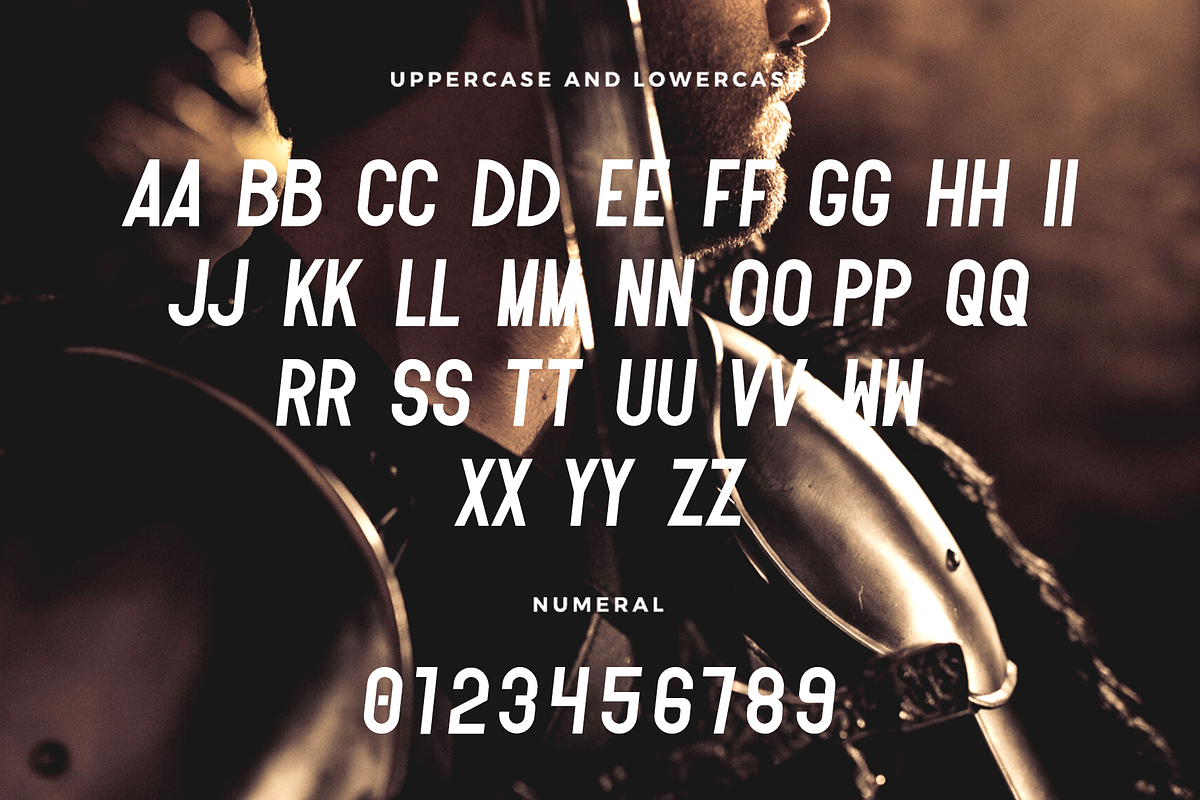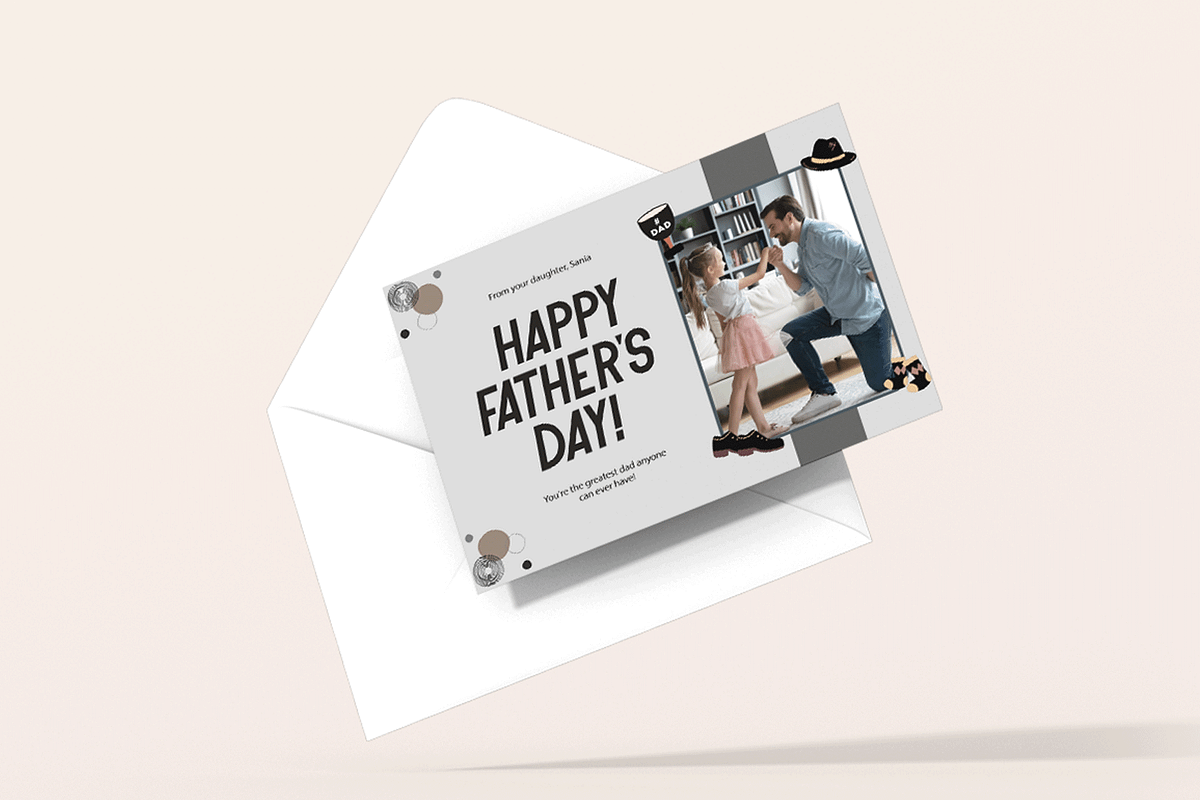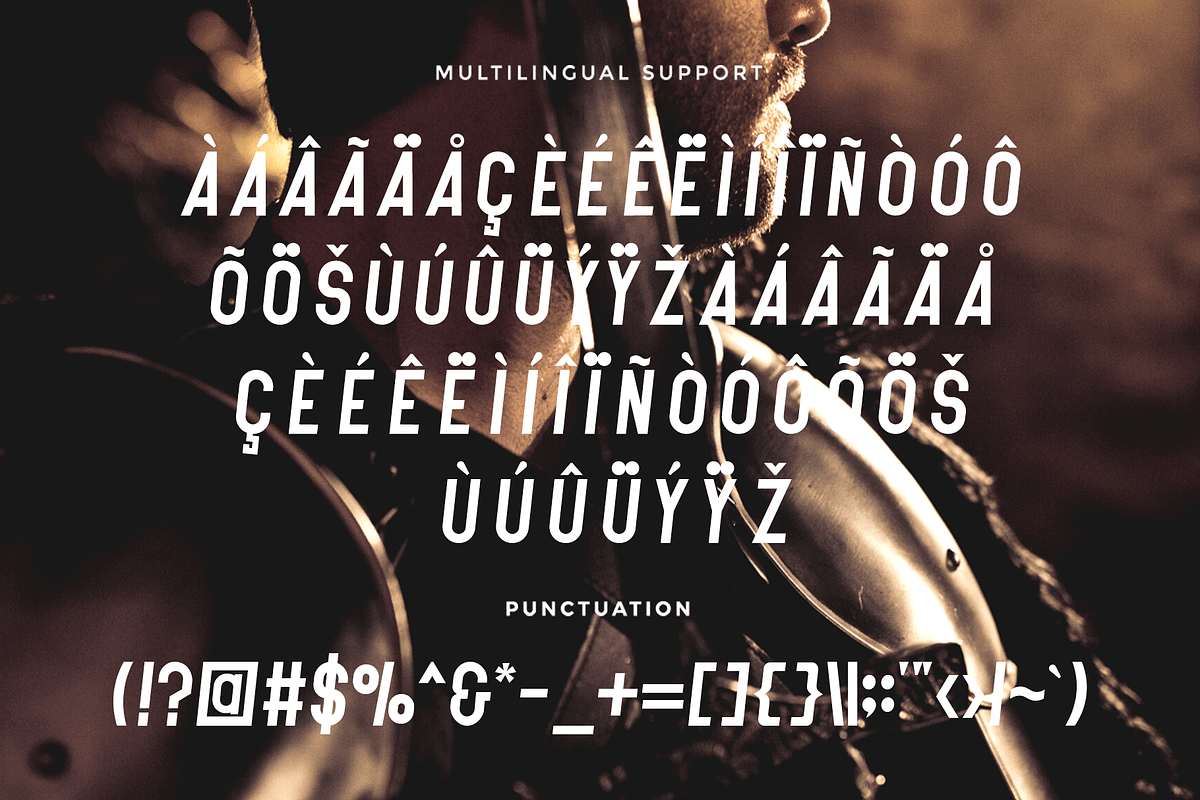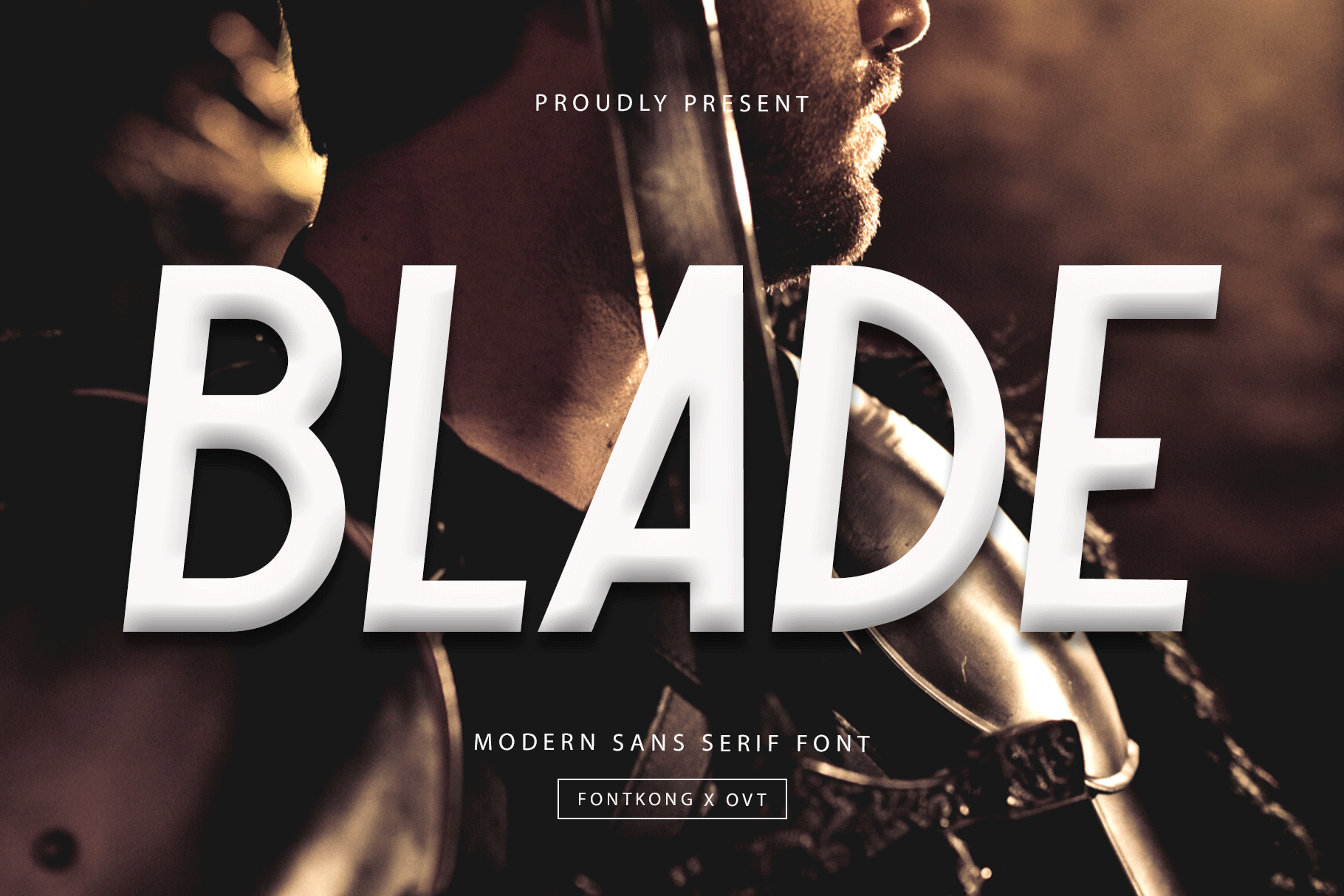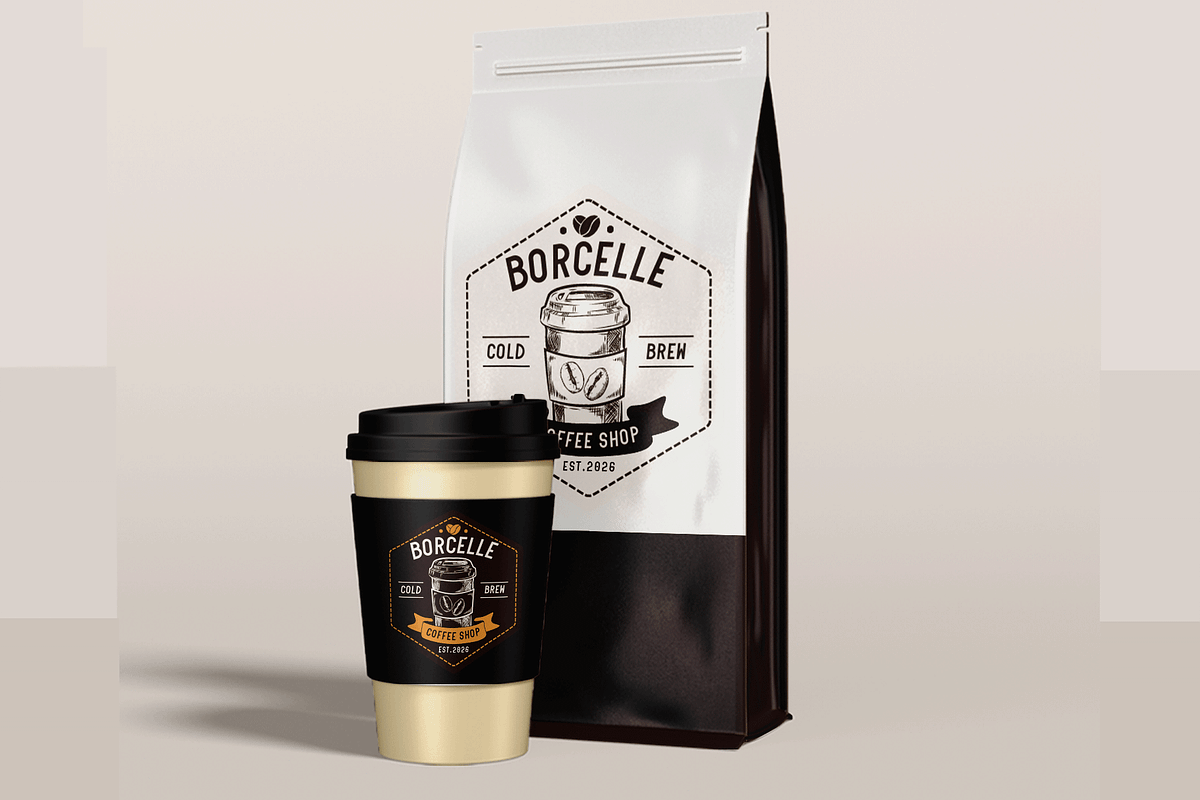
Blade - Modern Sans Serif Font
Introducing "Blade," a modern sans serif font that epitomizes sharp precision and sleek design. Perfect for graphic designers, typographers, and creatives seeking a clean and contemporary typeface, Blade offers a streamlined and sophisticated design that enhances any project with its refined simplicity.
Ideal for branding, editorial layouts, websites, logos, and packaging, Blade’s crisp and well-defined characters provide a professional and cutting-edge aesthetic. Each letter is meticulously crafted to ensure clarity and visual appeal, making your designs both elegant and impactful.
The "Blade" font includes a complete set of uppercase and lowercase letters, numbers, punctuation marks, and special characters. This comprehensive set ensures seamless integration into various design projects, from polished branding to modern editorial content.
Elevate your designs with Blade, the modern sans serif font that combines sharp precision with sleek design.